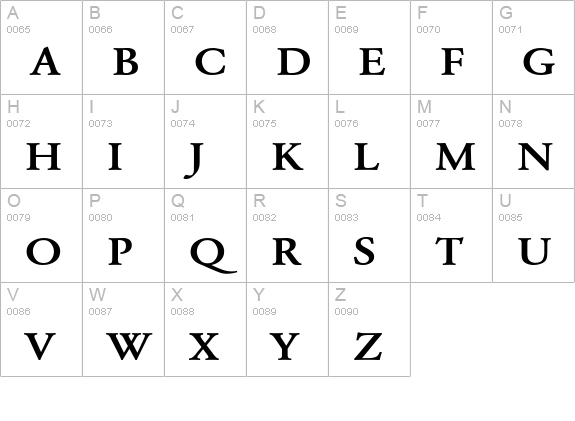
GaramondMediumE is a classic and elegant font that exudes sophistication and professionalism. Its timeless design makes it suitable for a wide range of projects, from formal documents to creative designs. With its medium weight, GaramondMediumE strikes the perfect balance between readability and style, making it a versatile choice for both print and digital media. This font is available for free download at FontsMarket.com, where users can easily access and incorporate it into their projects. Whether you're looking to elevate your branding, enhance your website, or create stunning marketing materials, GaramondMediumE offers a high-quality option that is both visually pleasing and easy to work with. Don't miss out on the opportunity to enhance your designs with the timeless beauty of GaramondMediumE. Download it for free today and experience the impact it can make on your next project.